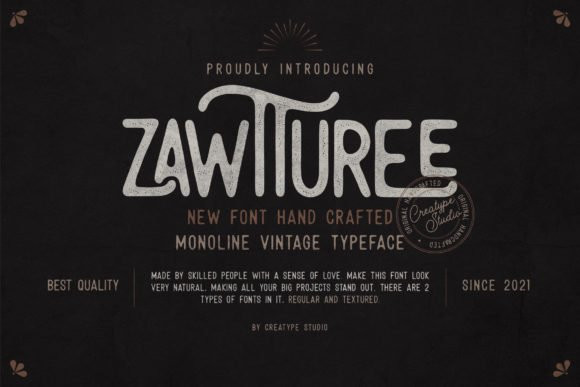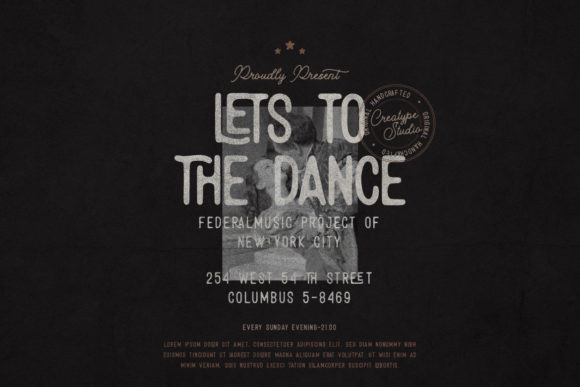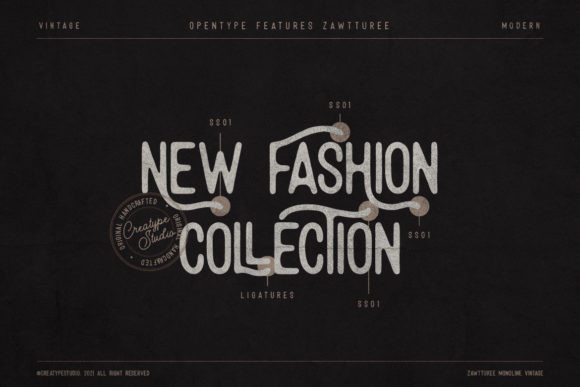
Zawturee Font
Zawturee FontZawturee is a cool, vintage styled sans serif font. This font is PUA encoded which means you can access all of the glyphs and swashes with ease!